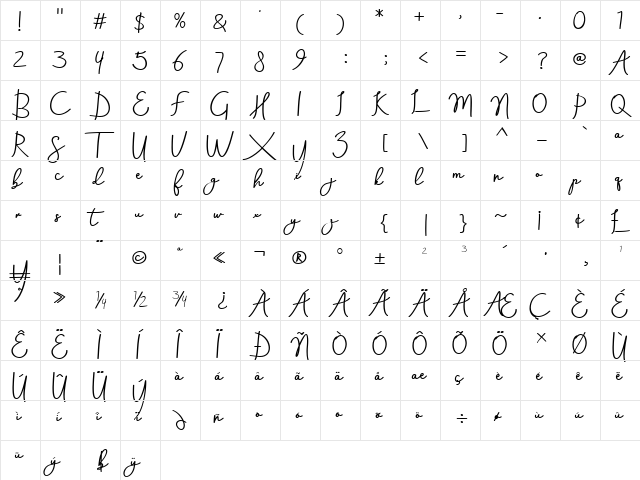
Aneisha Script Bold Regular
| Foundry | Mrletters (Muhammad Rizal) |
| Designer | Mrletters (Muhammad Rizal) |
Design Context for Aneisha Script Bold Typeface
Aneisha Script Bold flows with the natural rhythm of handwritten lettering, making it ideal for designs that call for warmth and personal expression. Its bold stroke weight gives it real presence on the page.